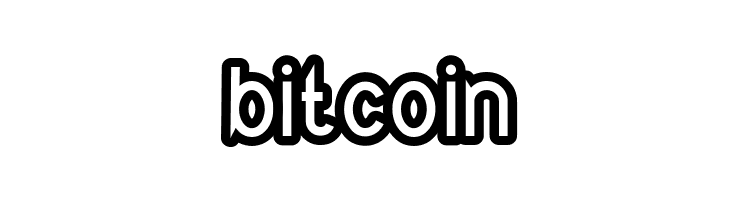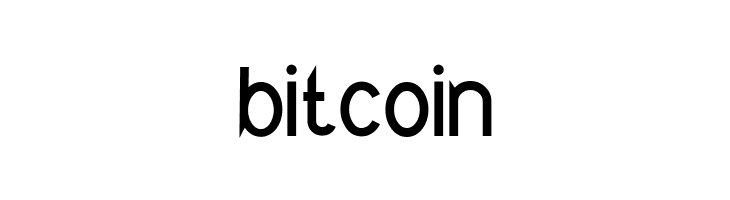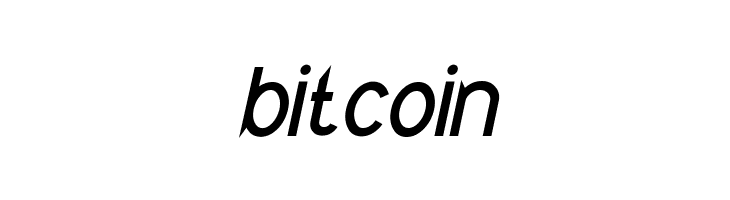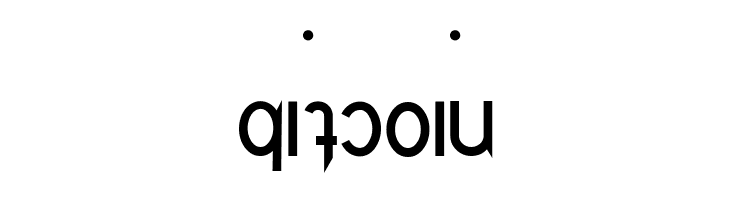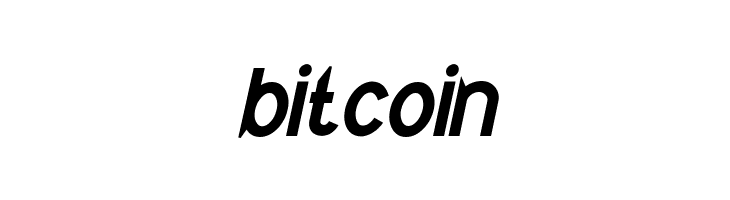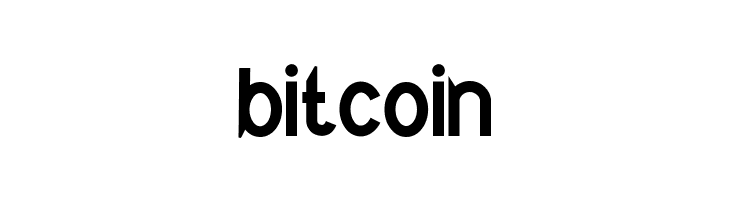
Quirkus Upside Down Font
A modern sans-serif font with clean lines and uniform structure.
Quirkus Font
A bold, geometric sans-serif font with clean lines and modern appeal.
Quirkus Out Font
A bold, rounded font with a thick outline, perfect for impactful designs.
Quirkus Bold Font
A bold, playful font with rounded characters and a modern style.
Quirkus Bold Italic Font
A bold, italicized font with a modern and energetic style.
Quirkus Italic Font
A dynamic italic font with a sleek, modern design.